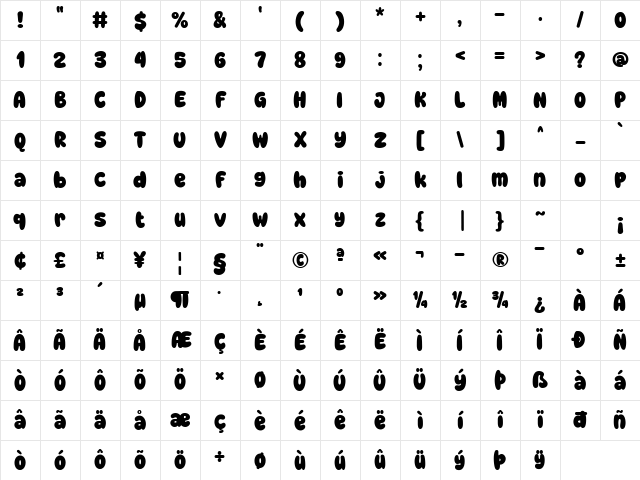
Super Magical Regular
Design Context for Super Magical
Super Magical is a composed and adaptable typeface that performs quietly and consistently across a wide range of design contexts.